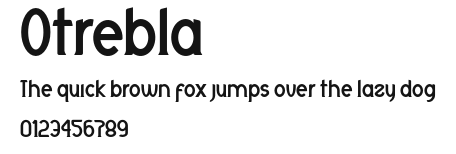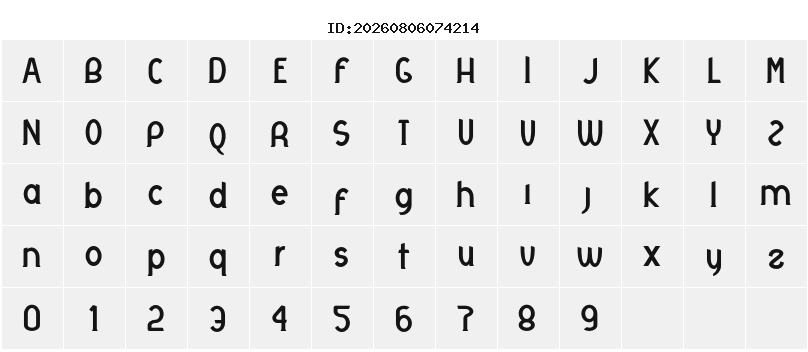
• Font Name: Otrebla
• Font ID: AlbertoVillanueva: Otrebla: 2014
• Full Font Name: Otrebla
• PostScript Name: Otrebla
• Designer: Alberto Villanueva
• Manufacturer: Alberto Villanueva
About Otrebla.otf
Otrebla.otf is a modern, elegant sans-serif font designed for ultimate readability and visual harmony. Perfect for branding, headlines, web design, and print materials.